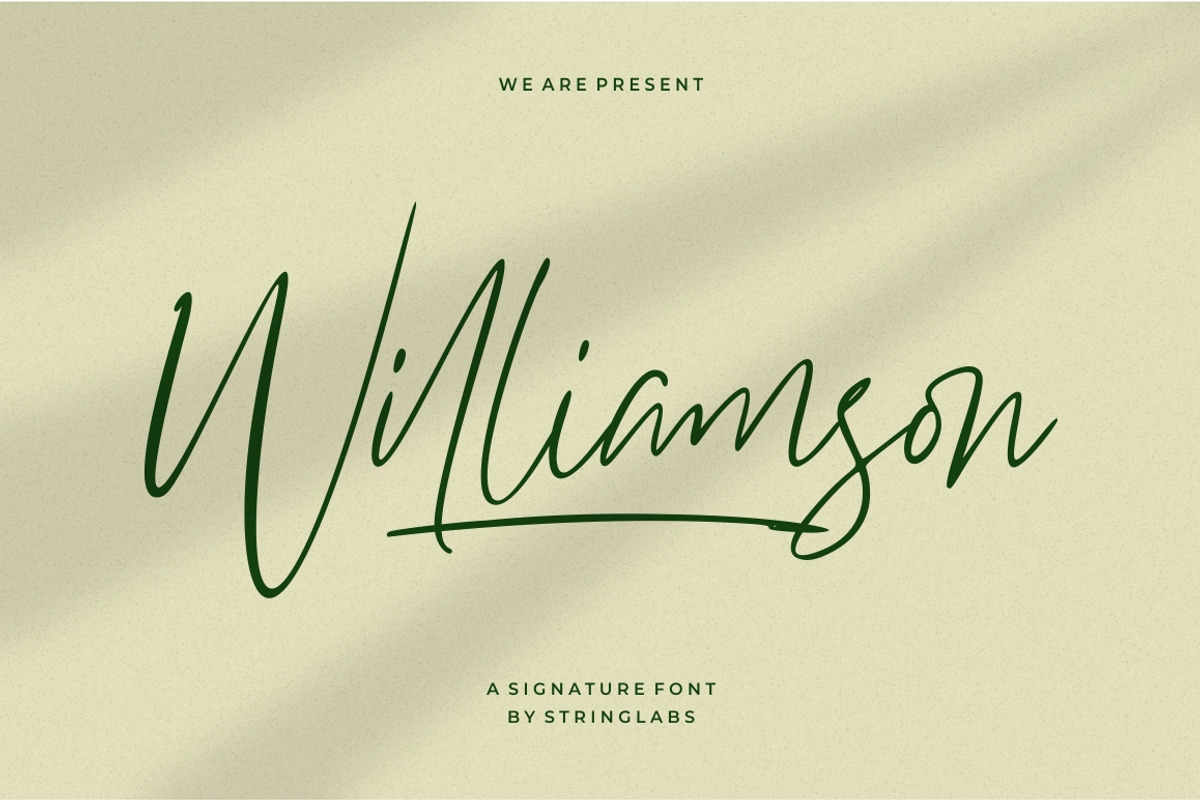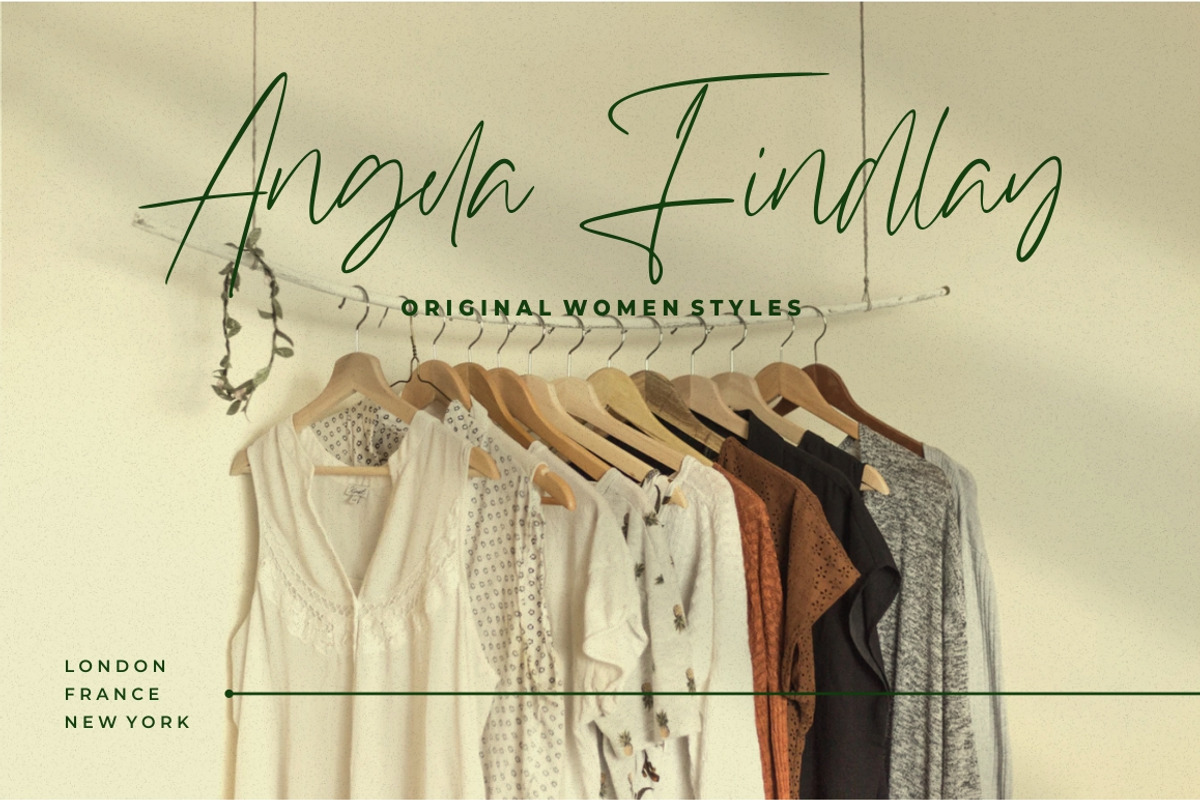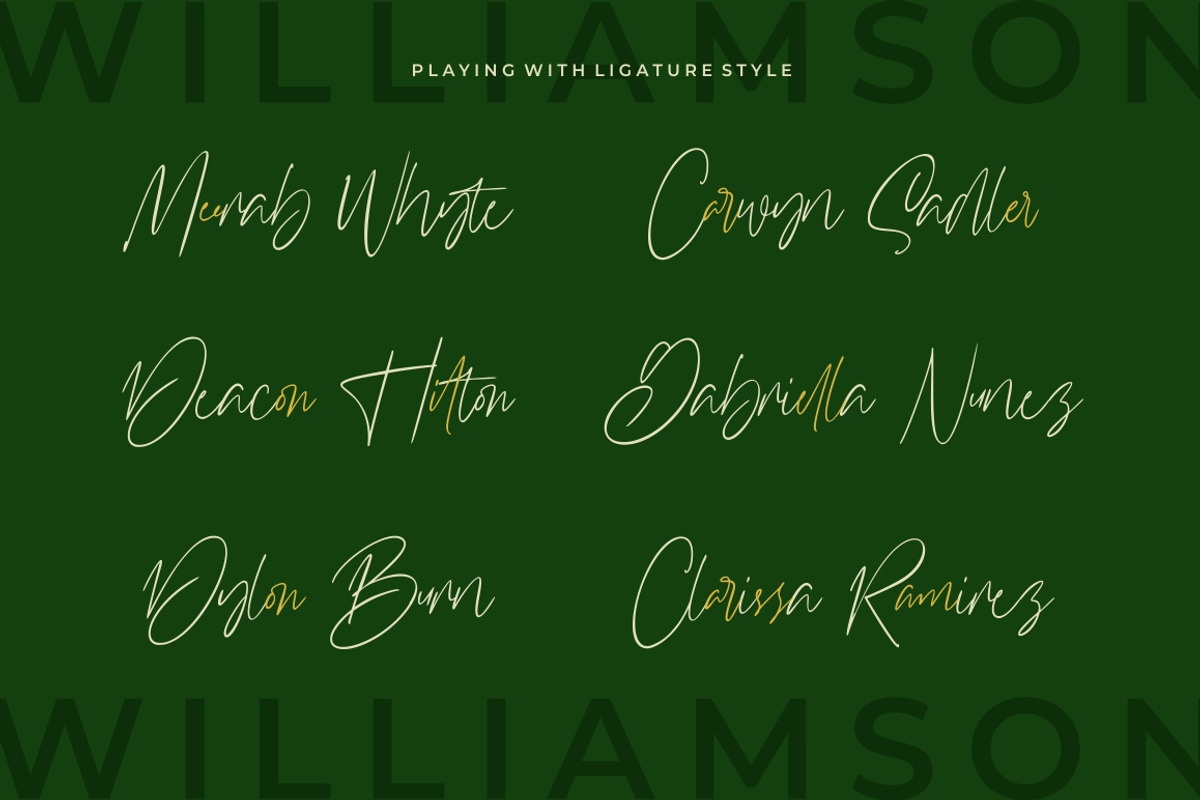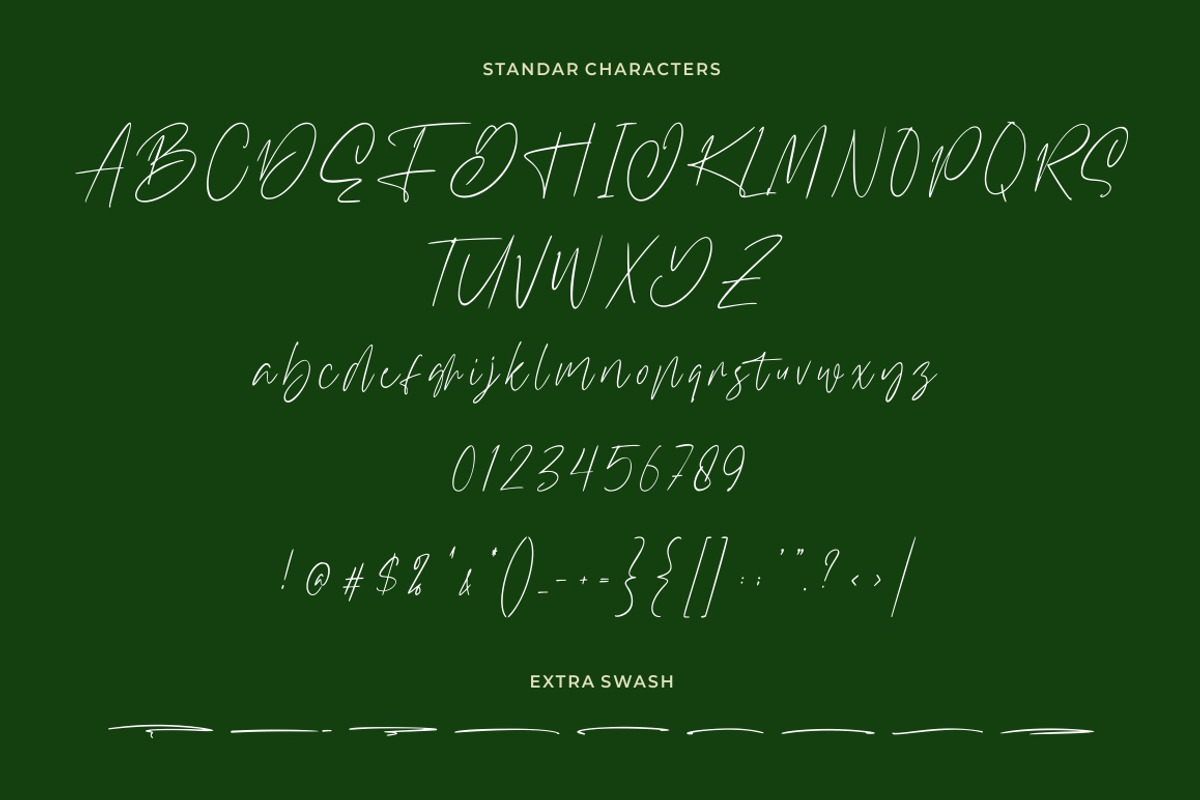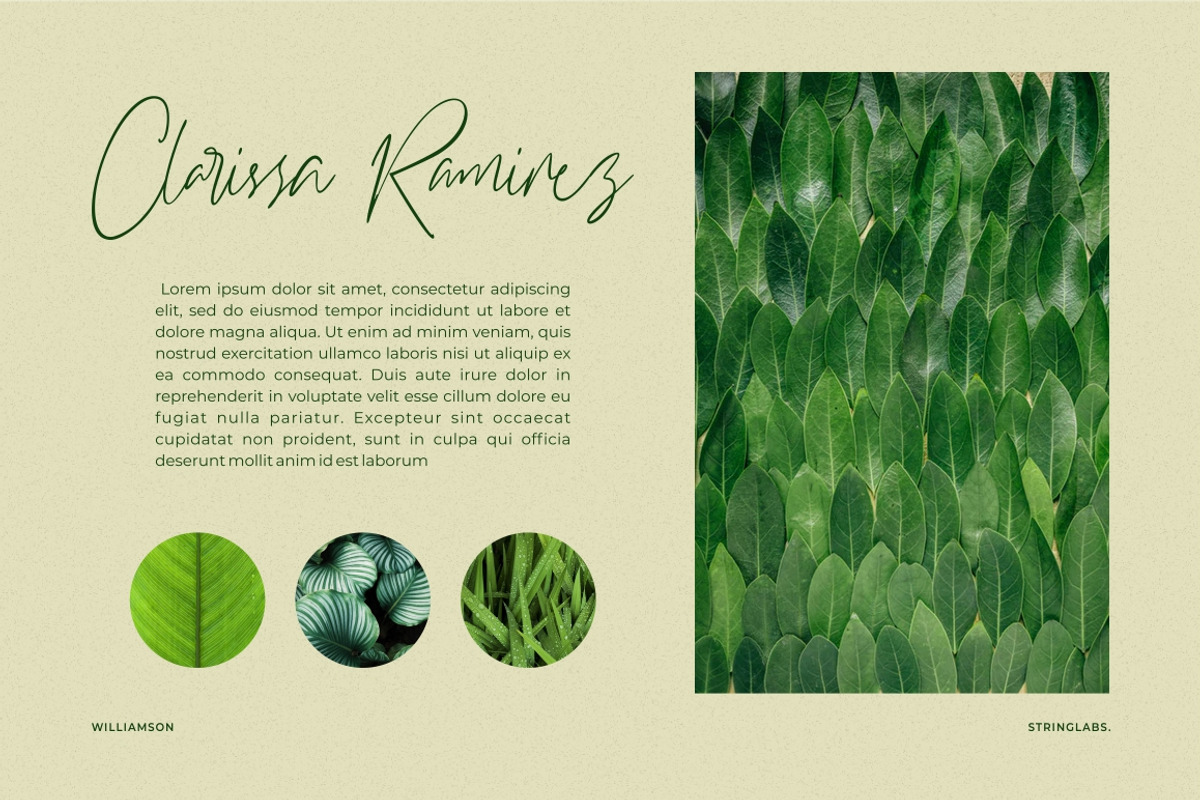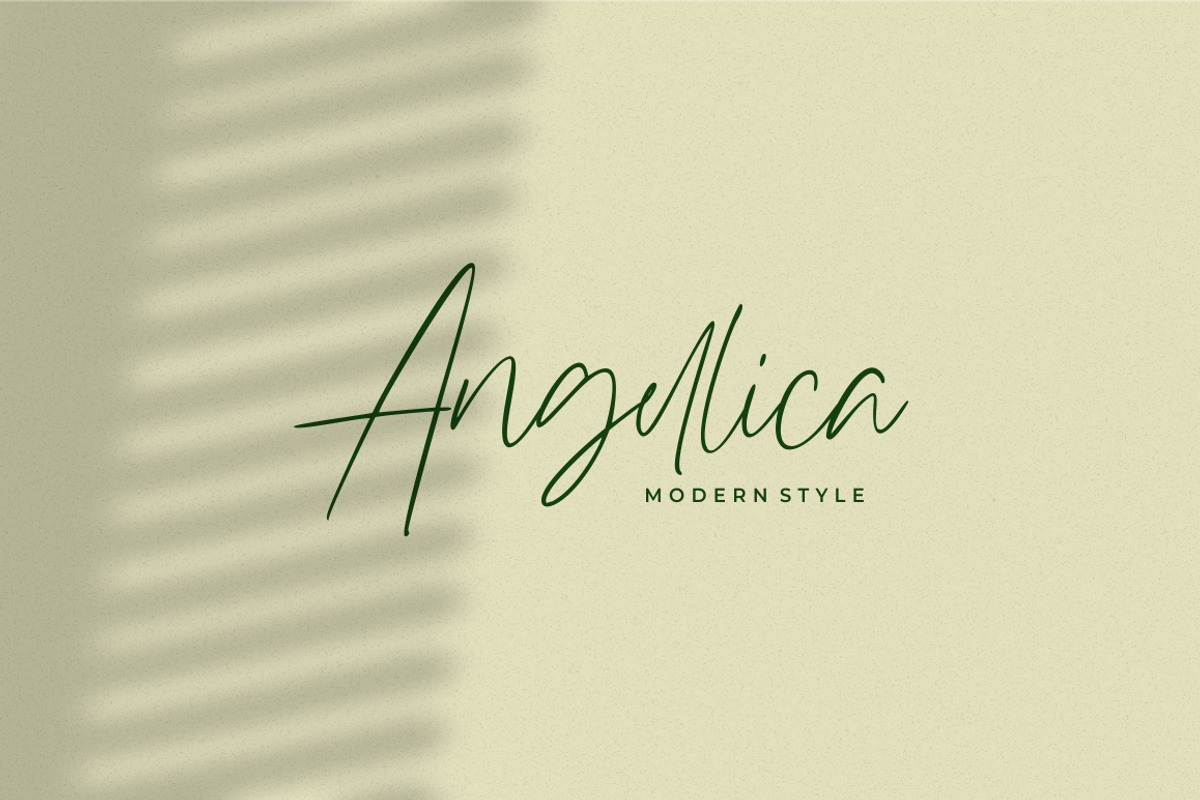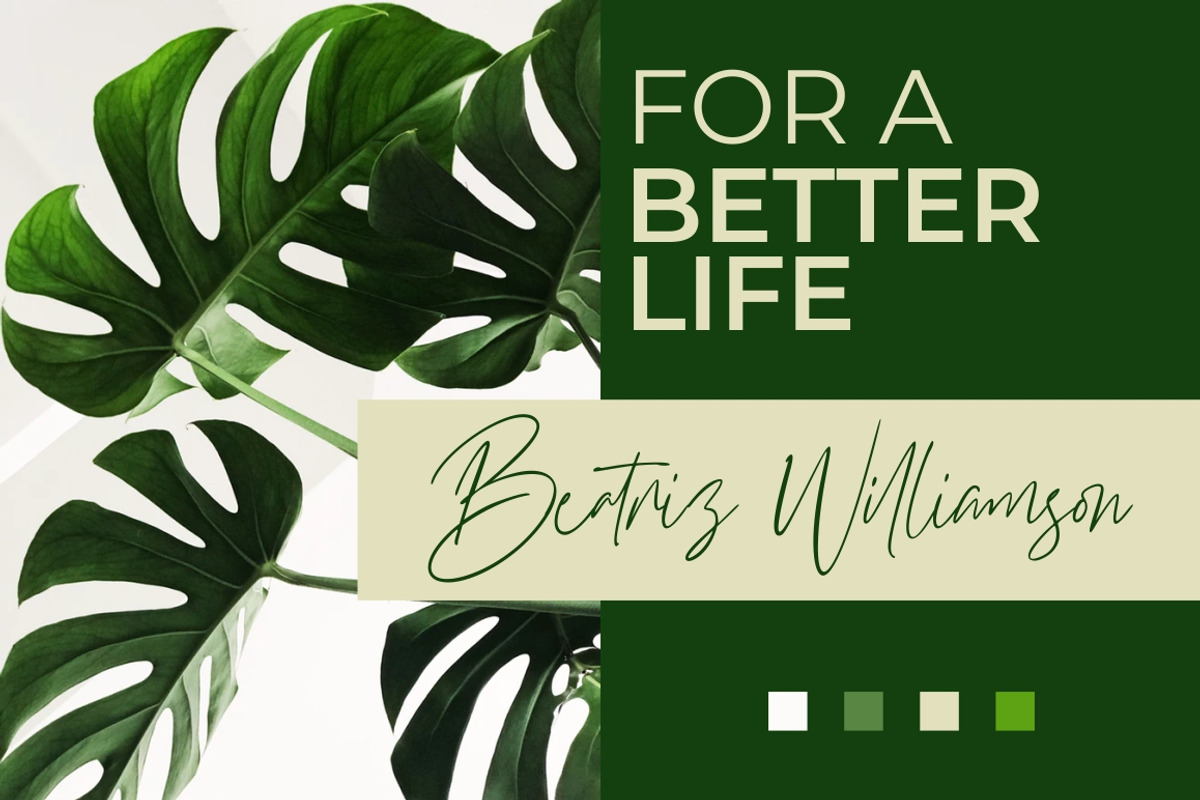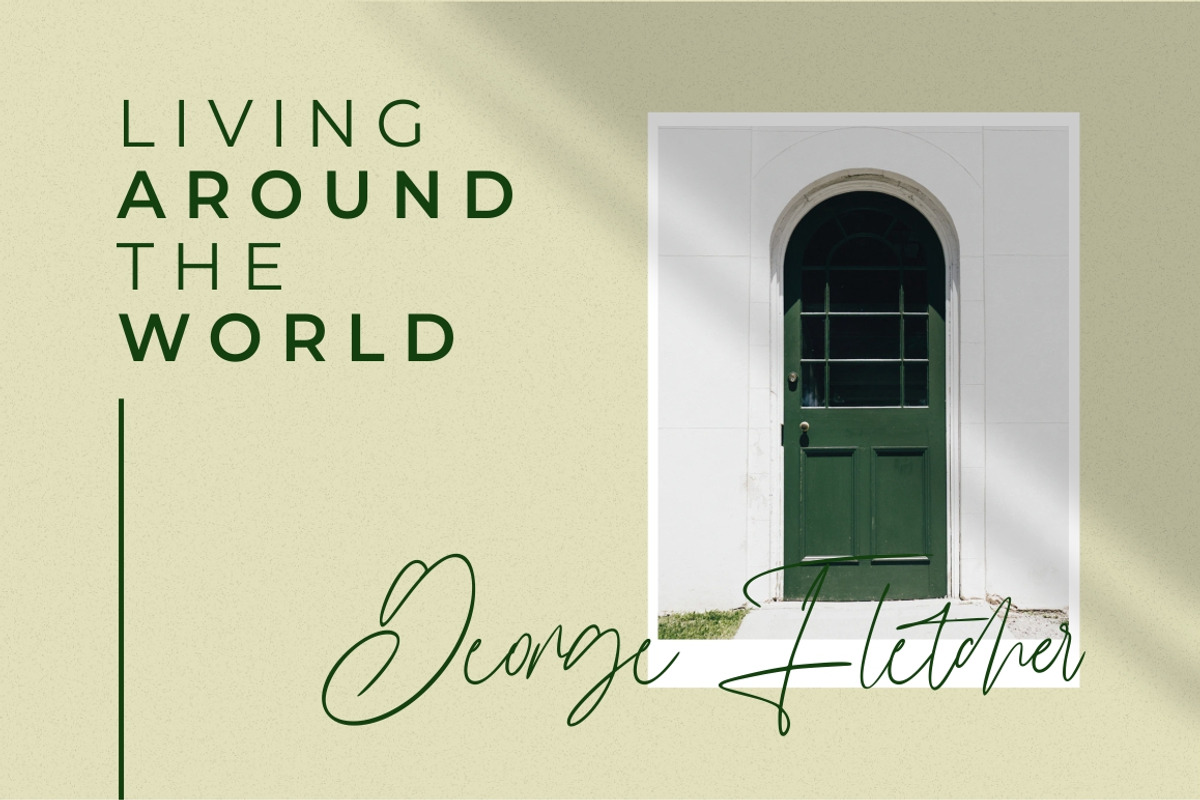
Williamson - Luxury Signature Font
Introducing Williamson - Luxury Signature Font
This Font can be used for any variety of purposes, such as: Signature, Photography, Wedding Ceremony, Invitation, Packaging, Logo Type, Branding Design, Fashion and also can be used for Personal purpose.
- This Font Template contains Modern, Elegant, Creative, Professional and Unique Concept.
- Williamson Regular
- Williamson Swash Regular